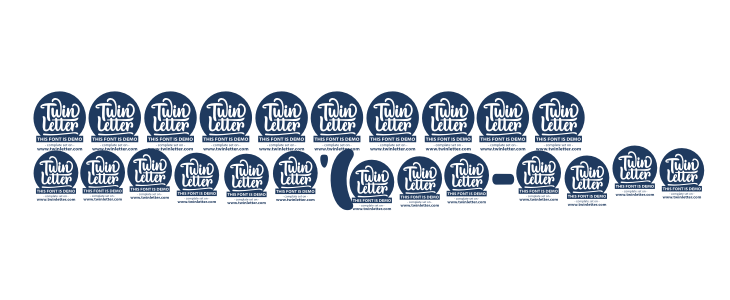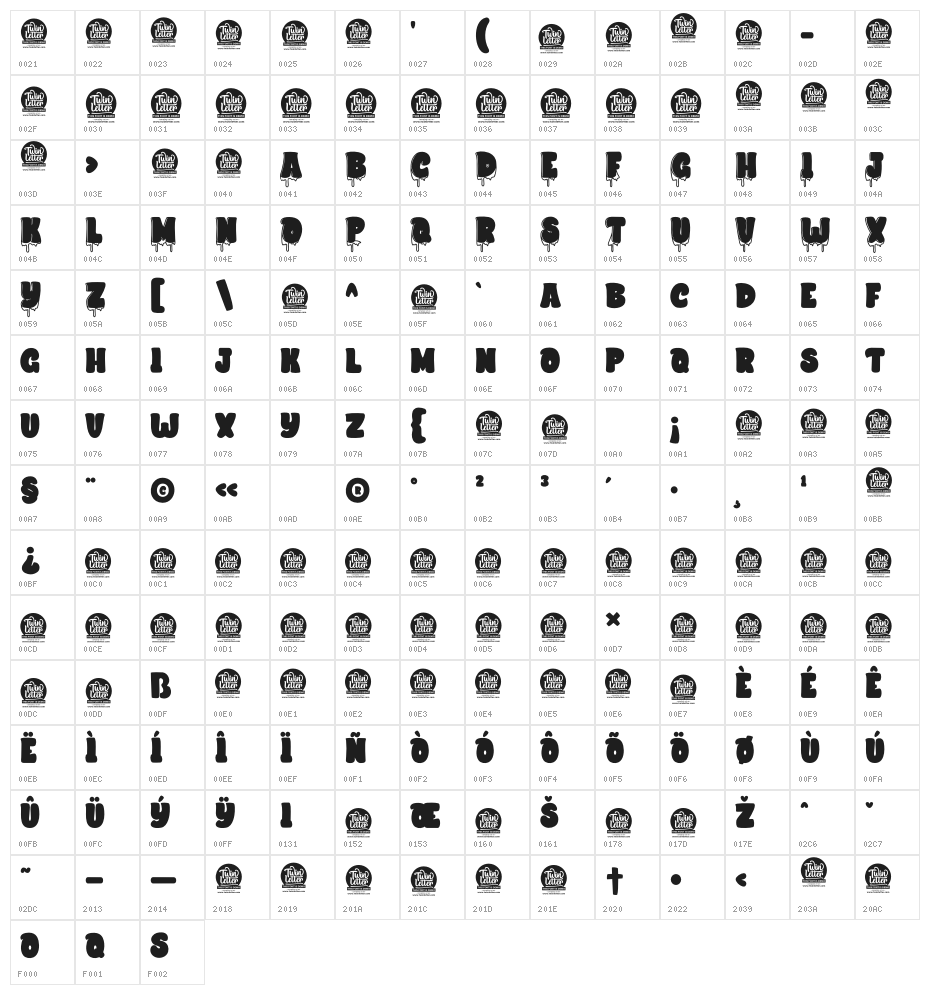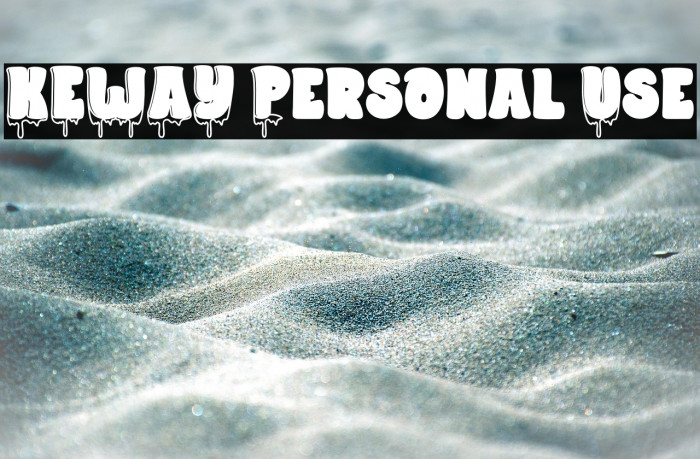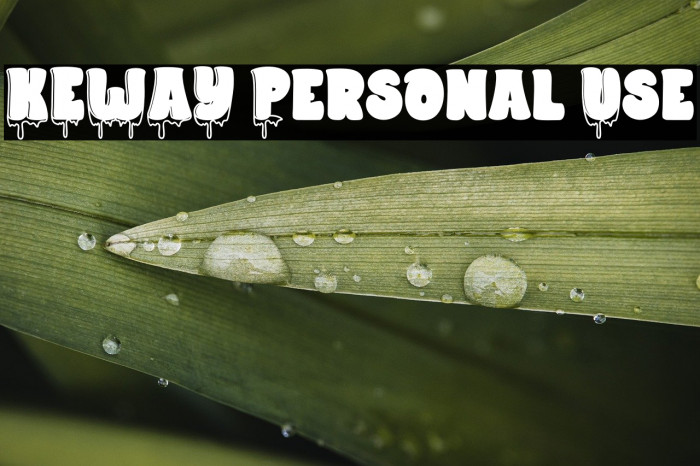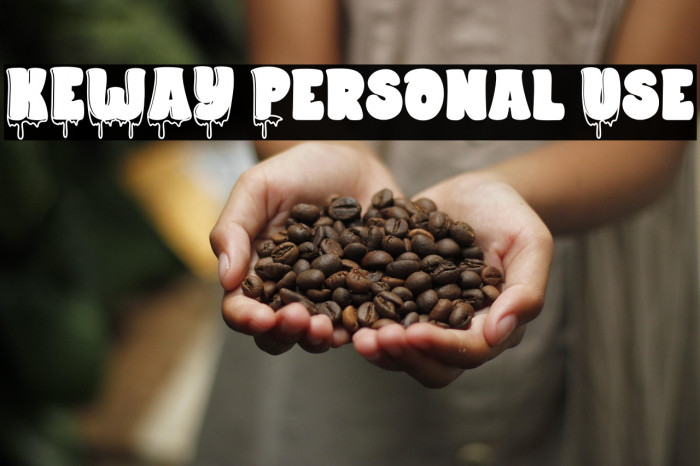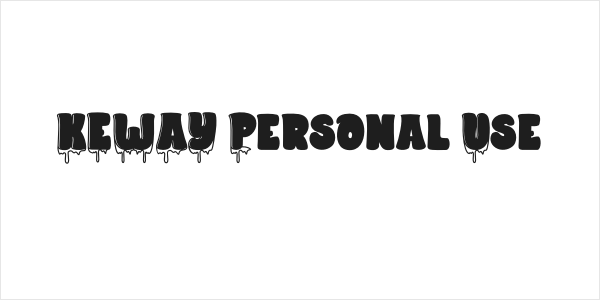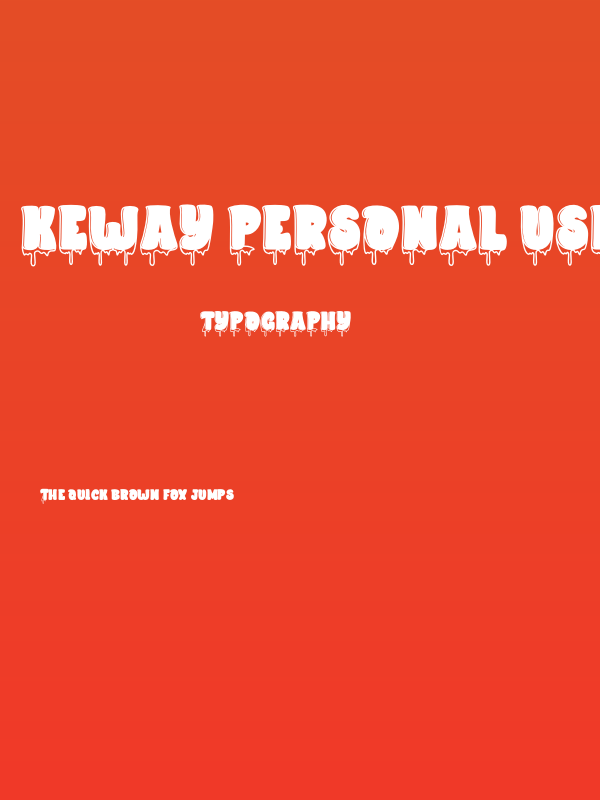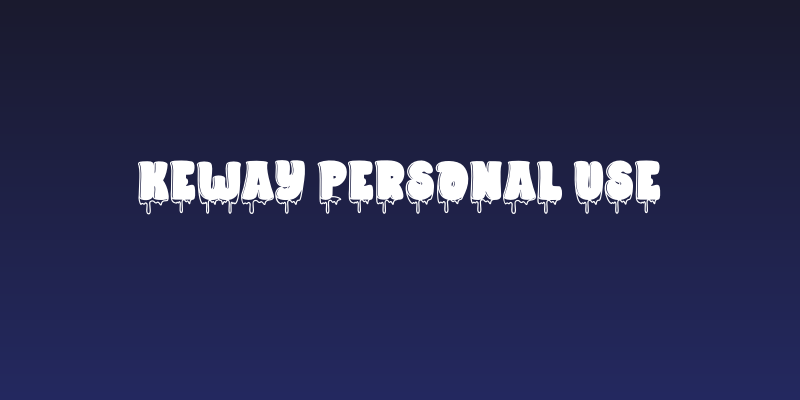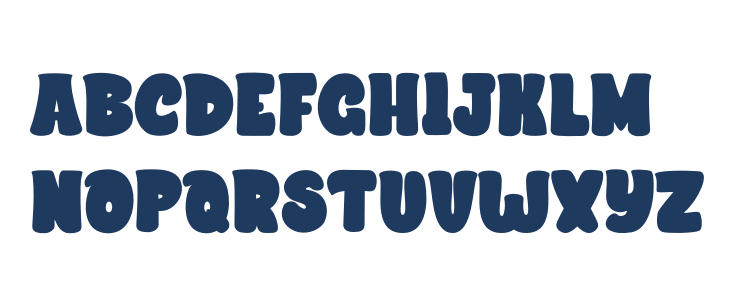
KEWAY Personal Use Font
KEWAY Personal Use Description
This font features a bold and playful design with a dripping effect on the uppercase letters, giving it a unique and eye-catching appearance. The characters are rounded and thick, providing a sense of fun and creativity. The lowercase letters maintain the boldness but without the dripping effect, offering a more straightforward yet still playful look. The font is highly decorative, making it ideal for projects that require a standout visual element. Its boldness and unique style make it suitable for various creative applications.
A bold, playful font with a dripping effect on uppercase letters, ideal for decorative use from Uncategorized fonts.
- Proposed Projects: Perfect for posters, children's book covers, party invitations, and branding that requires a fun and bold statement.
- Overall Style: Playful, Creative, Decorative